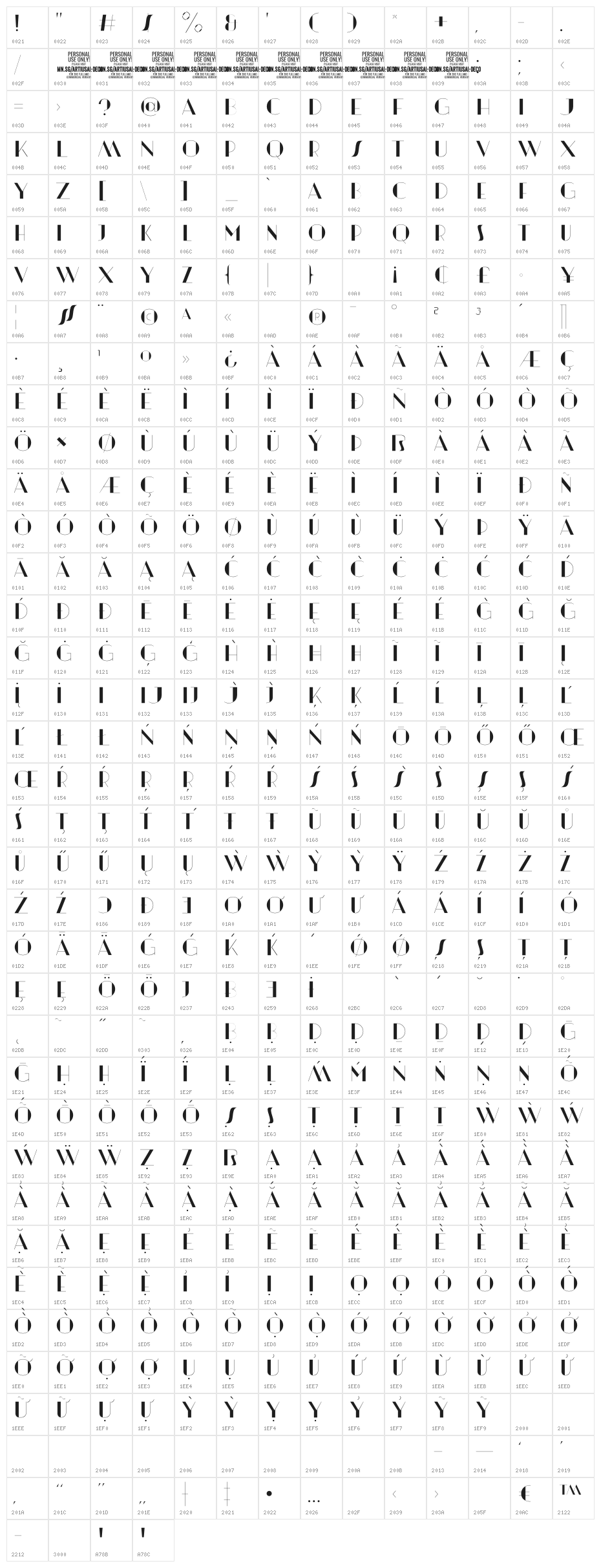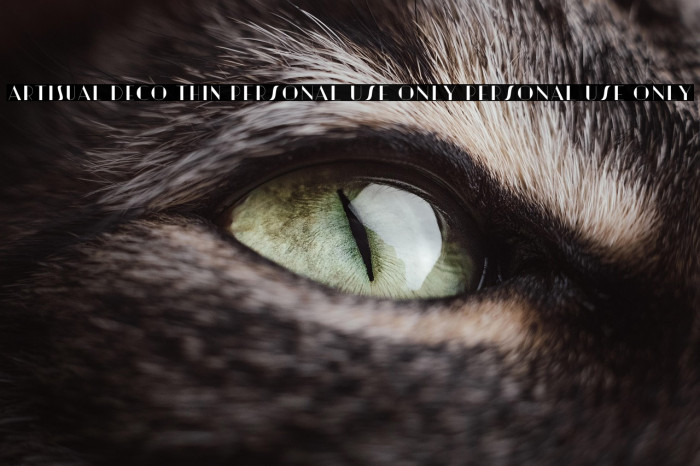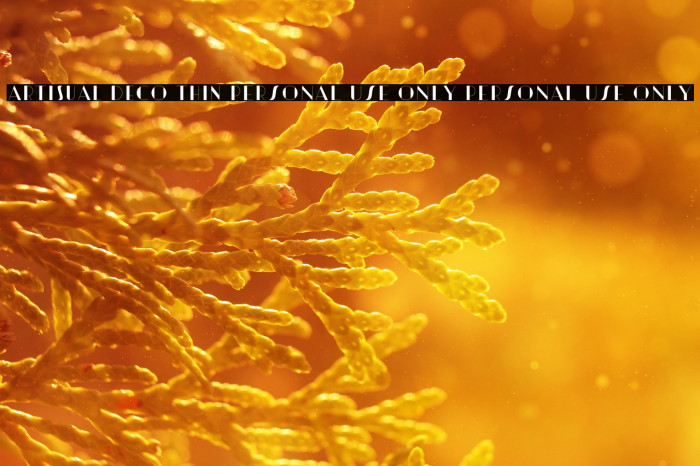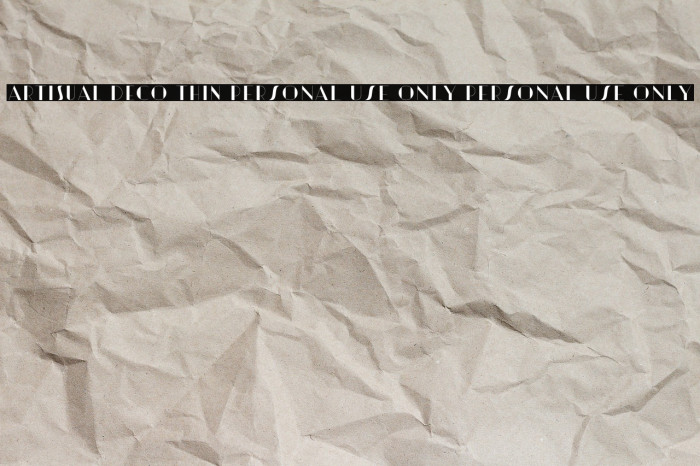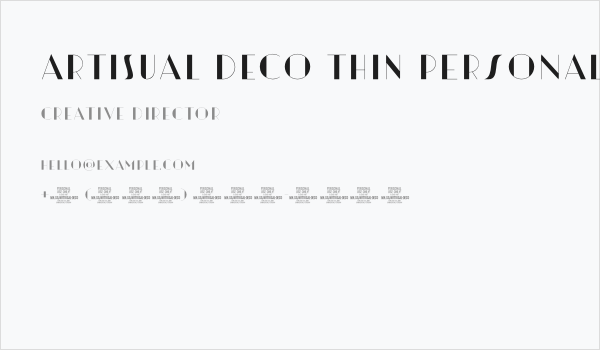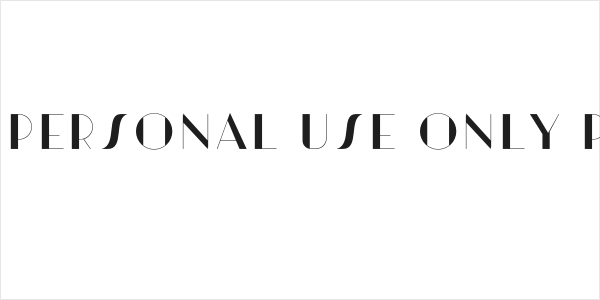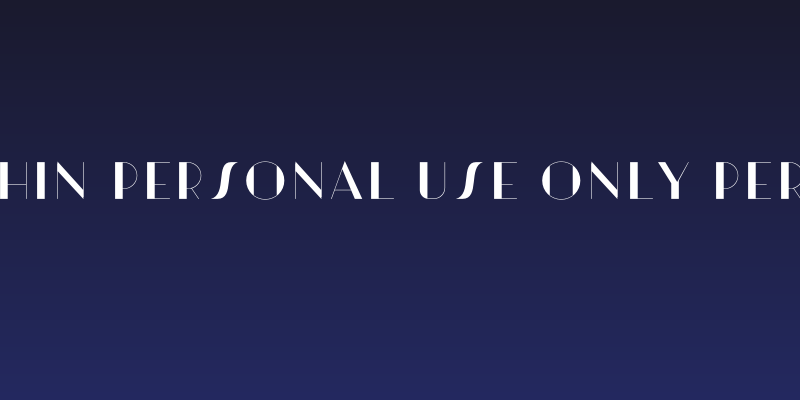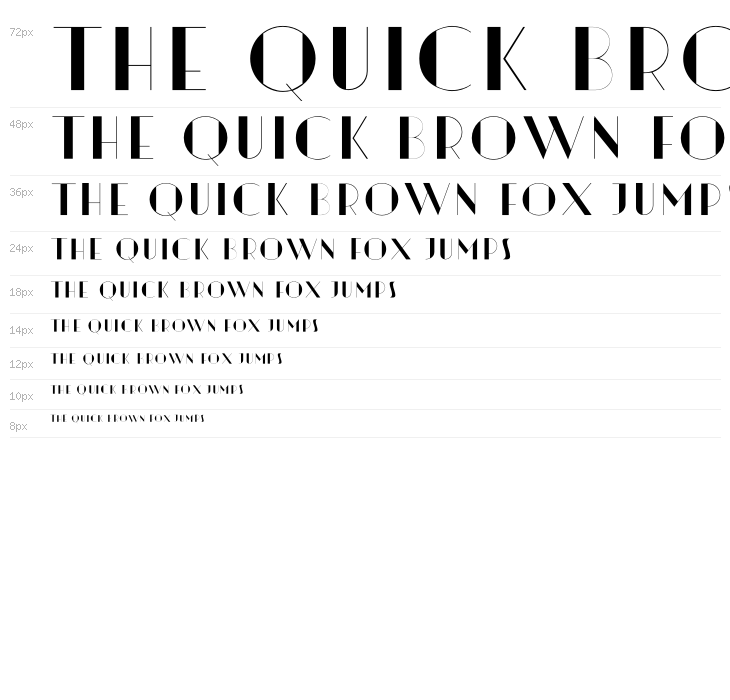
Artisual Deco Thin PERSONAL USE ONLY Font
Artisual Deco Thin PERSONAL USE ONLY Description
This font embodies a sleek and sophisticated Art Deco style, characterized by its thin, elegant lines and geometric shapes. The uppercase letters are distinct with sharp angles and a sense of symmetry, while the lowercase letters maintain a consistent style that complements the uppercase. The numerals and special characters follow the same design principles, offering a cohesive look across all characters. The font's thin strokes and high contrast between thick and thin lines give it a refined and modern appearance, making it suitable for projects that require a touch of elegance and class.